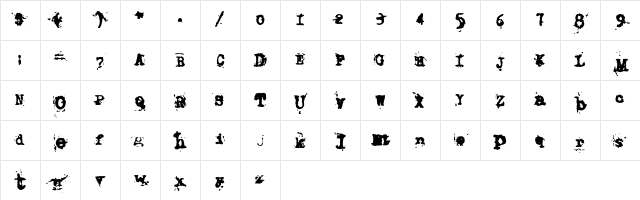
Rochester (r)ecife Free Font
Rochester (r)ecife
Style: (r)ecife
Design Context for Rochester
Rochester is a composed and adaptable typeface that performs quietly and consistently across a wide range of design contexts.